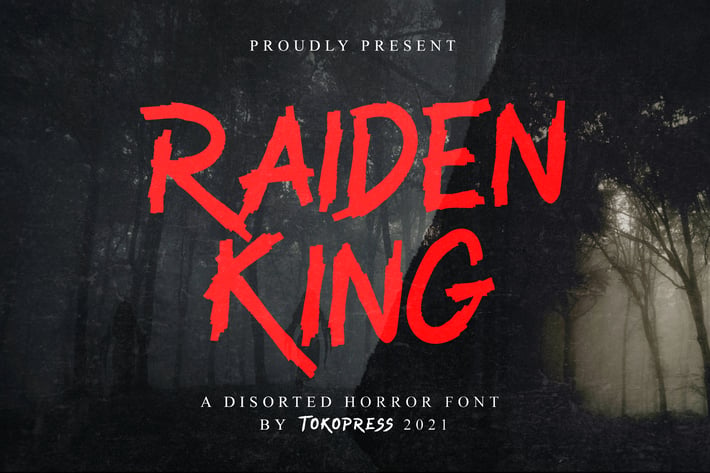
RAIDEN KING - Brush font
RAIDEN KING - Brush Font
Raiden King is a distressed horror brush font crafted with wild, torn edges and expressive pressure changes—giving each letter an erratic, handmade feel. Its jagged rhythm, ink splatter accents, and exaggerated contrast channel the chaotic intensity of psychological horror. Built for fear-fueled storytelling, it exudes an unstable vibe that fits right into horror movie titles, slasher game branding, or paranormal podcast covers.
With its sharp brush strokes and tension-heavy flow, Raiden King is more than a font—it’s a scream written down.
Whether you’re designing eerie poster headlines, thriller book covers, or survival game UIs, Raiden King strikes like a visual jolt. It’s the ideal companion for any horror-themed branding—especially for Halloween promotions, VR game interfaces, scream-park signage, or true crime podcast visuals. Its nervous, unpolished letterforms immediately stir unease—perfect for grabbing attention and setting a chilling mood fast.
Key Features :
Distorted Horror Style
• Brush-drawn look with erratic edge detail and high textural variation.
Cinematic Impact
• Designed for bold display use—titles, credits, posters, and attention-grabbing graphics.
Raw & Chaotic Energy
• Uneven strokes and expressive curves deliver emotional punch and genre-specific aesthetics.
Versatile for Dark Design
• Use across horror games, VR assets, YouTube thumbnails, and Halloween merchandise.